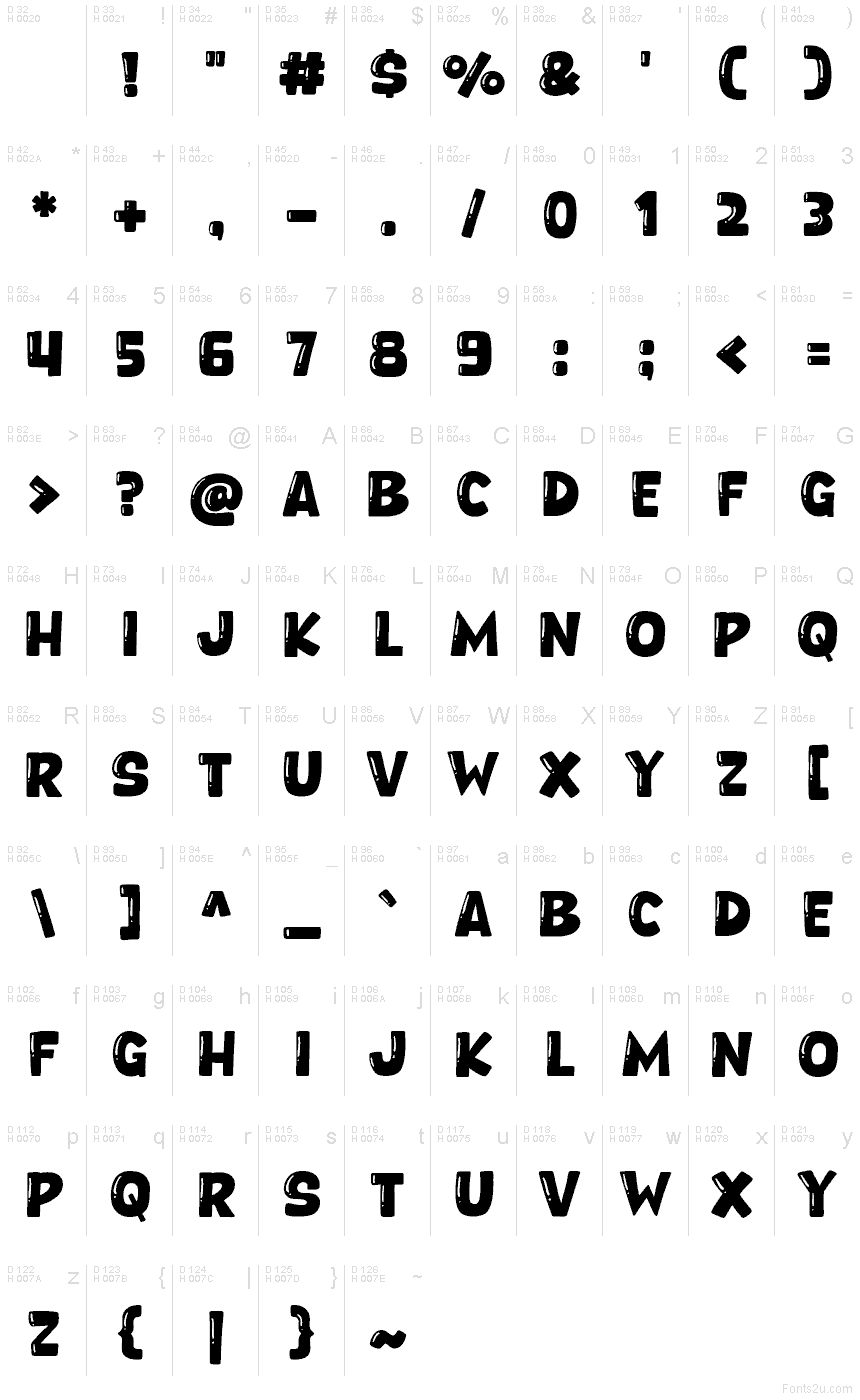
Postbook
Postbook font by Khurasan is a bold display type with a playful and cartoonish style. It features glossy, exaggerated proportions that lend it a friendly, approachable appearance. Inspired by a modern comic style, the font is suitable for youth-oriented media. Each character has been carefully designed with round corners to achieve an ideal cartoon appeal.
Use this free font in comic books, animated videos, YouTube thumbnails, kids’ products packaging designs, logo creation projects targeting children or teenagers and more. Postbook can also be combined with illustrations of any kind to develop educational or entertainment-based messages for children of all age groups.